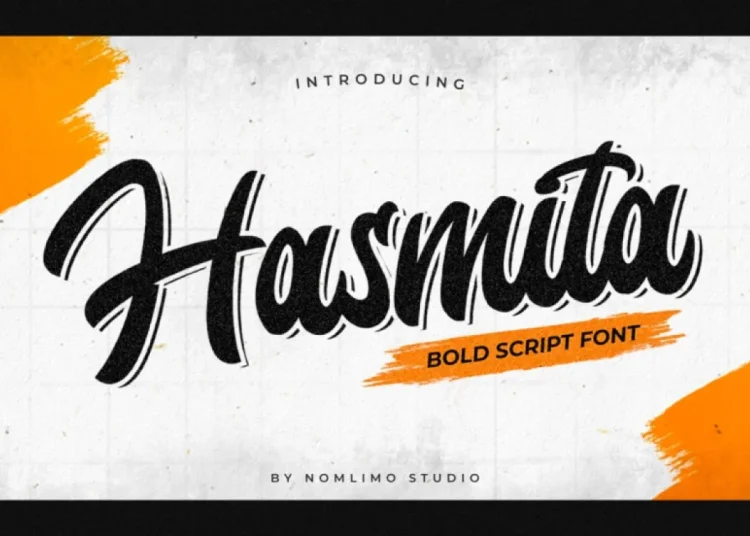
Hasmita Font
Hasmita is a bold script font that beautifully captures the essence of handwritten letters. Its design is infused with vibrant influences from StreetArt and UrbanStyle cultures, creating a unique visual aesthetic that is both lively and engaging. This artistic appeal makes Hasmita an excellent choice for brands looking to convey creativity and energy, allowing your projects to stand out with its captivating urban flair.
The font’s boldness is perfect for a range of applications, including art posters, branding materials, and various creative endeavors. With Hasmita, you can let your imagination run wild, as its striking letterforms encourage a sense of playfulness and artistic expression. This makes it an ideal choice for any project that seeks to inspire and captivate its audience.
In addition to its stylish appearance, Hasmita brings a touch of enthusiasm to your designs. Whether used for promotional materials, social media graphics, or event invitations, this font is designed to make a lasting impression. Its lively character and urban vibe invite creativity and innovation, helping to bring your ideas to life in a dynamic way.